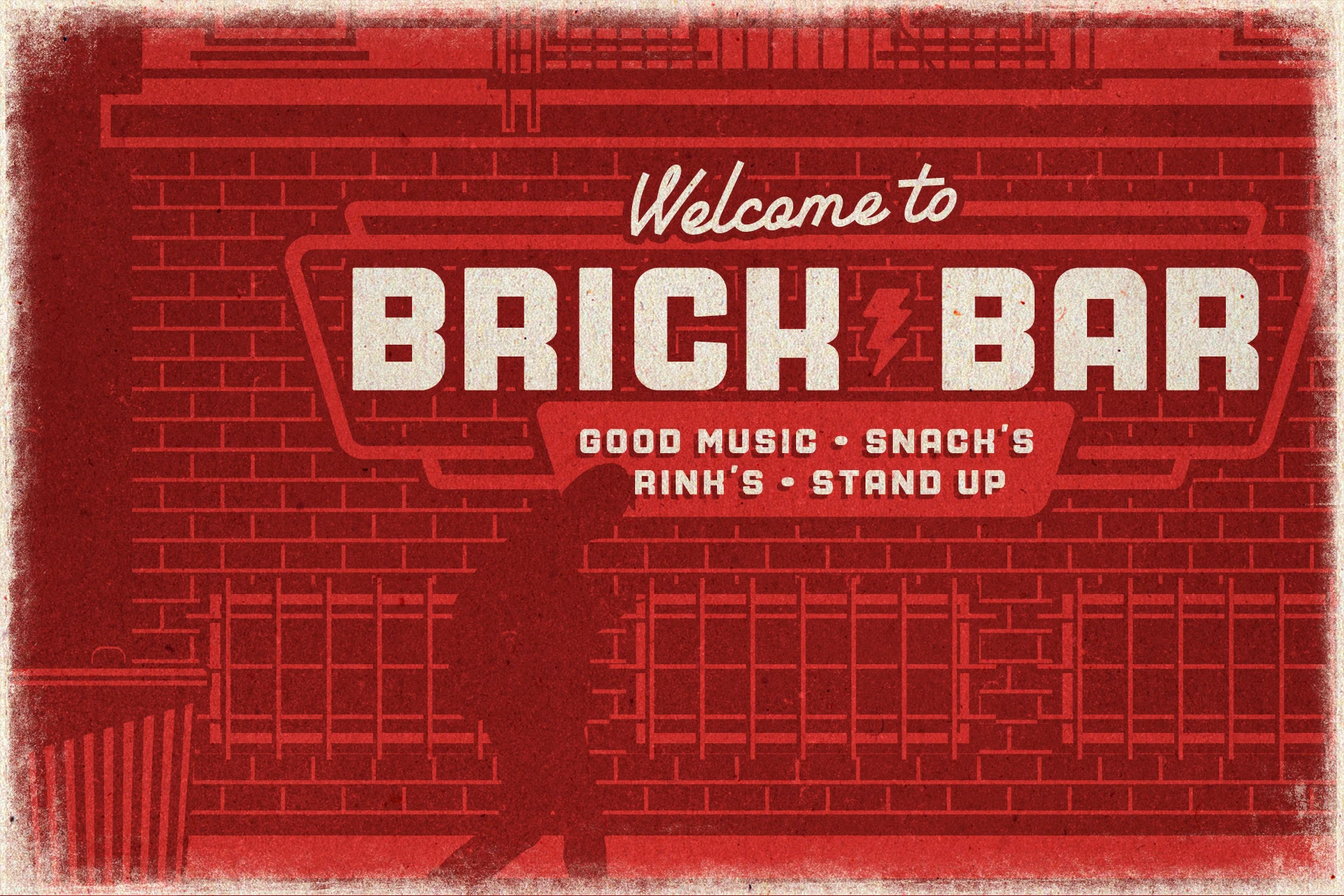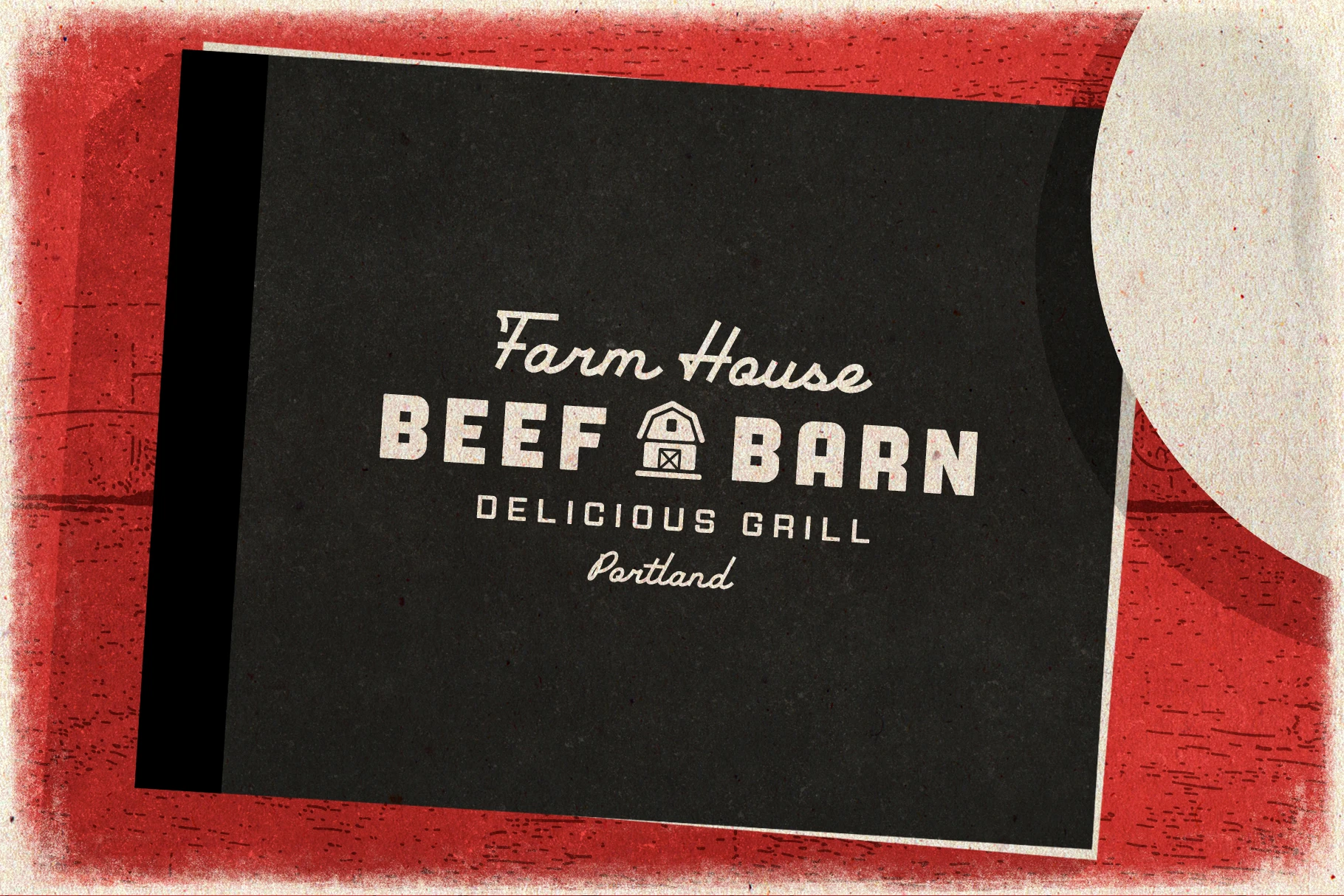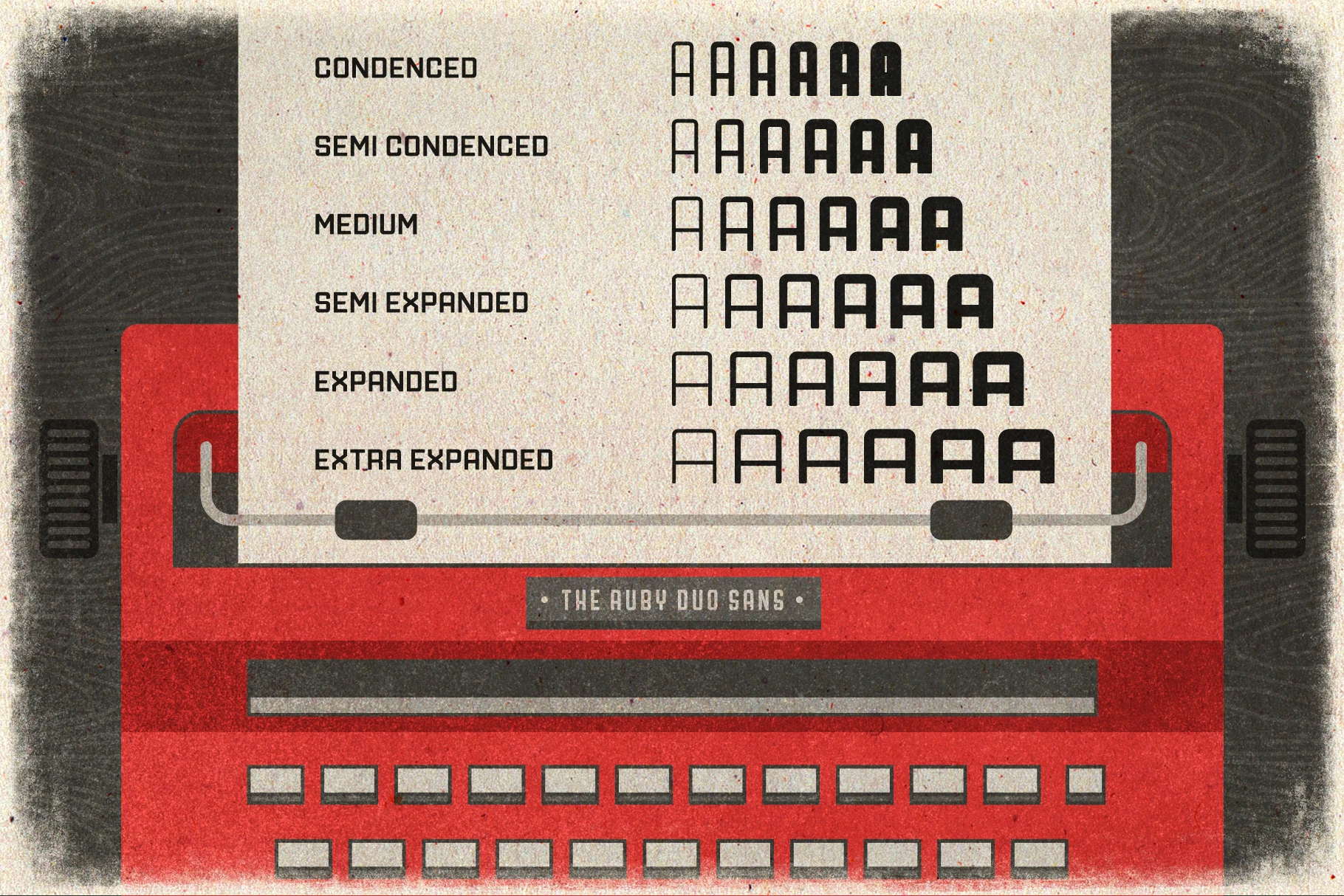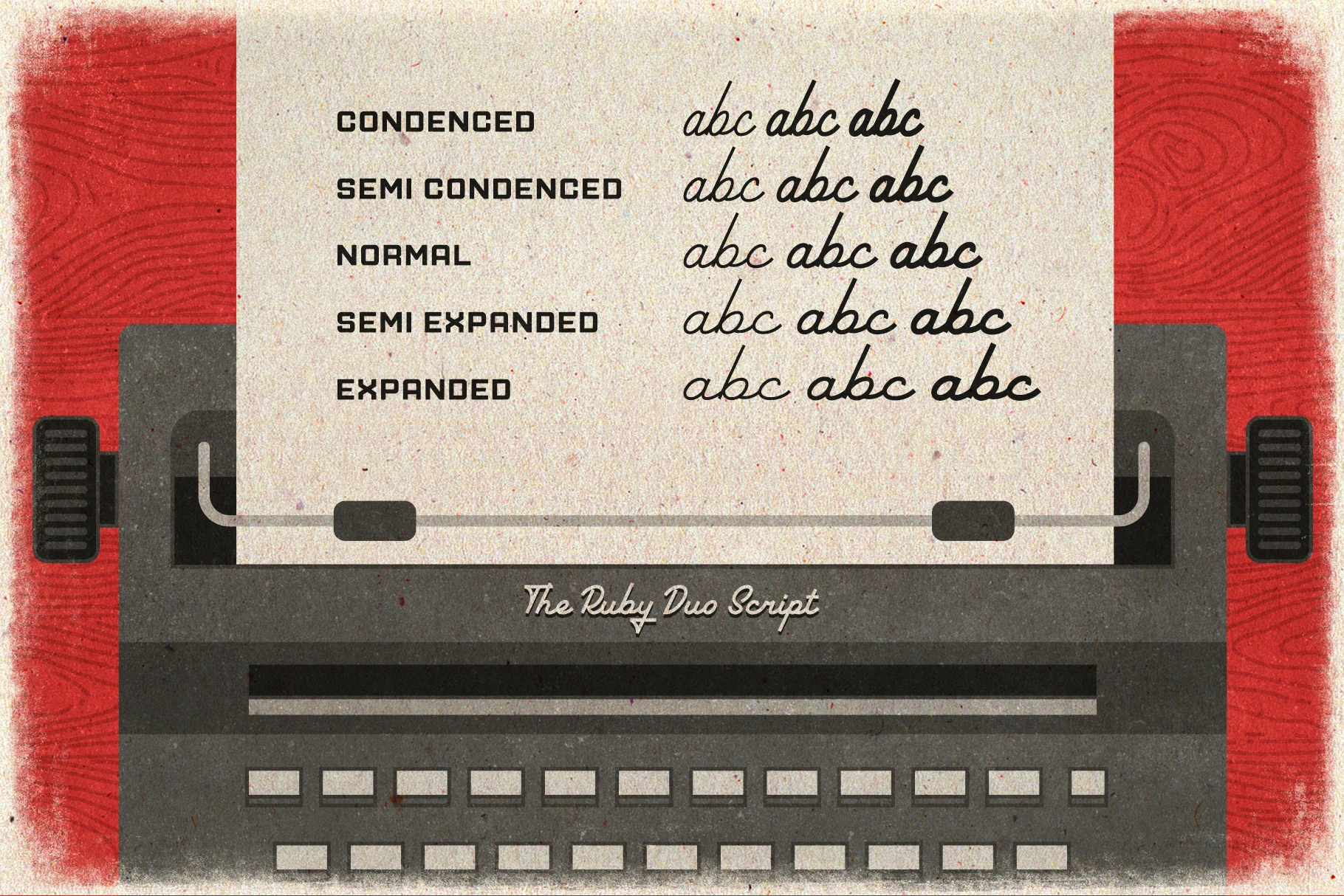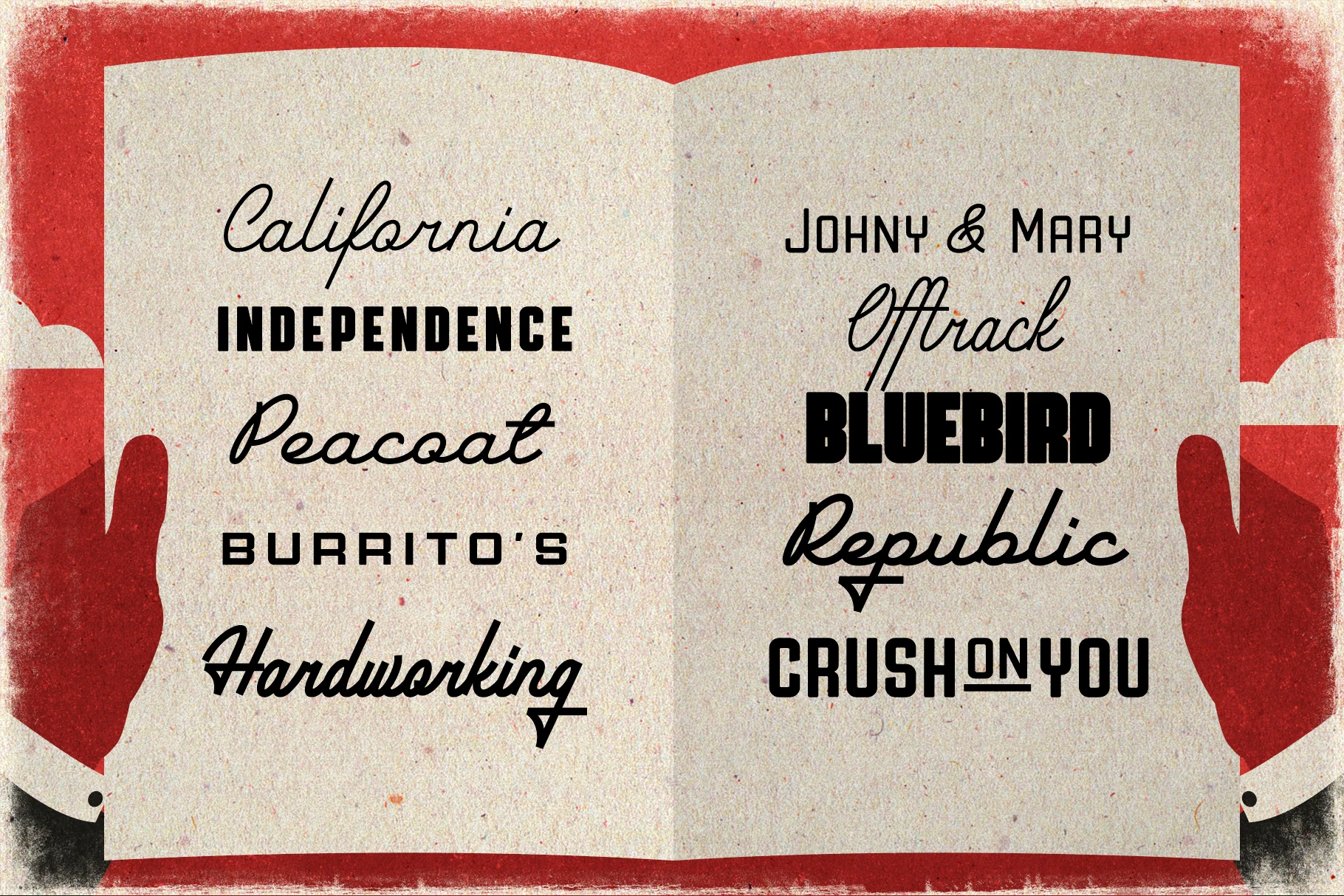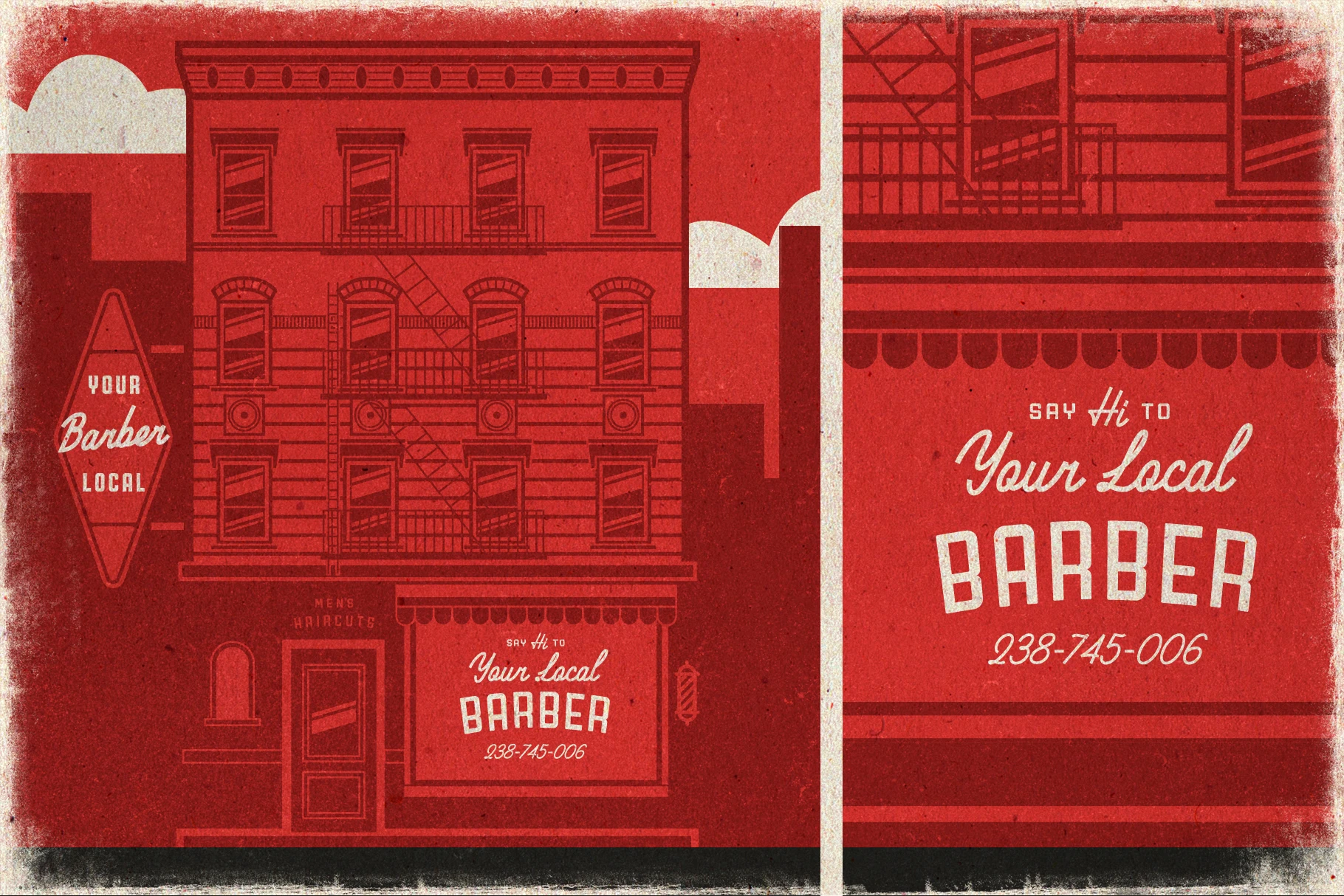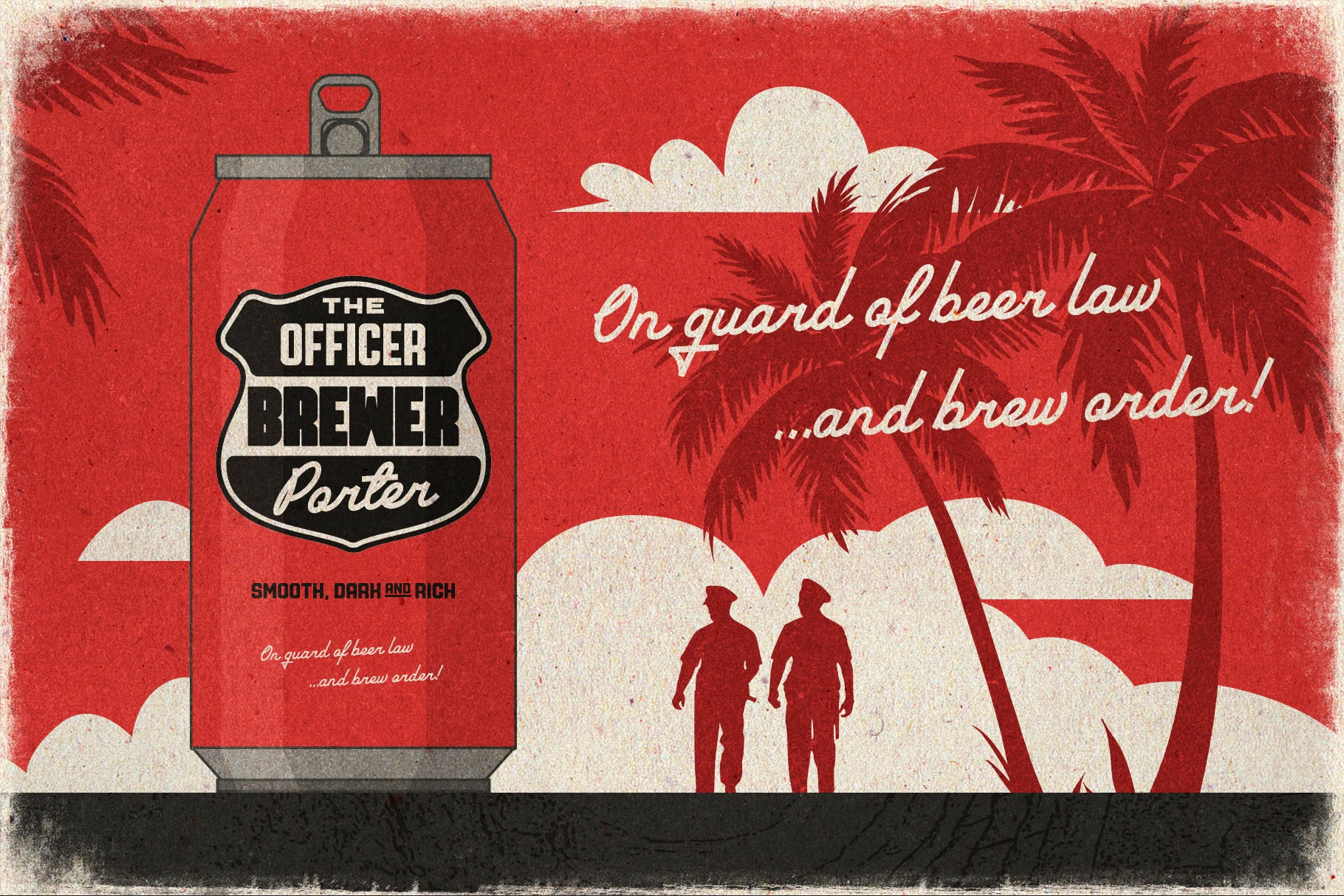
Ruby Duo • 56 styles
The Ruby Duo is a retro-inspired font pair combining a rugged sans-serif with a smooth monoline script. The sans offers a wide range of widths and weights, from Condensed to Extra Expanded and Light to Black, making it highly flexible for various layouts. As a variable font, the sans allows full control over width and weight for custom styling. It also includes underline small caps alternates, ideal for conjunctions and added flair. The script features subtle alternates to shift its tone, making this duo a strong choice for logos, headlines, packaging, and vintage-themed designs.
• Fractions
• Stylistic Alternates
• Stylistic Sets